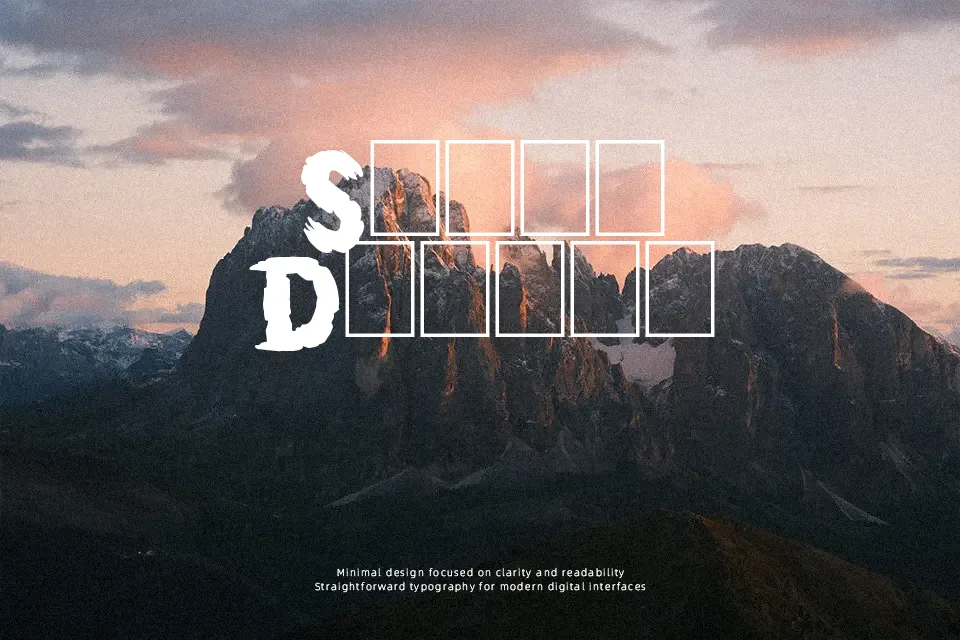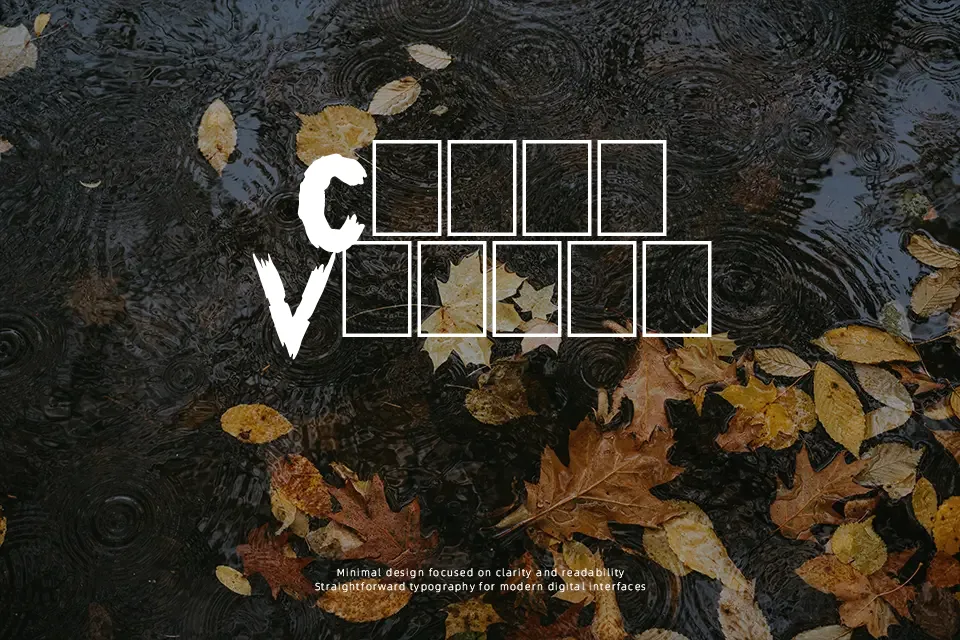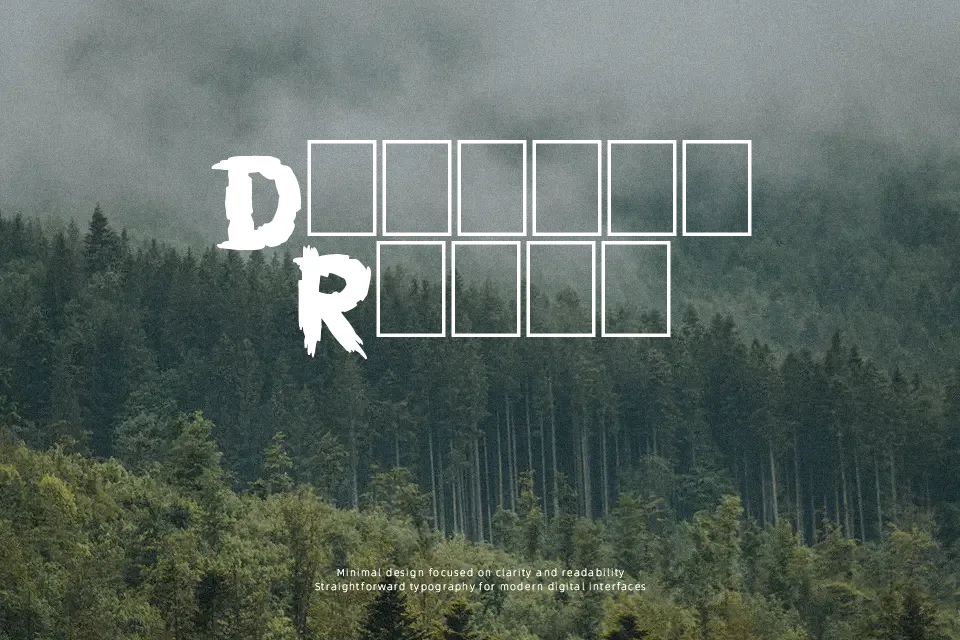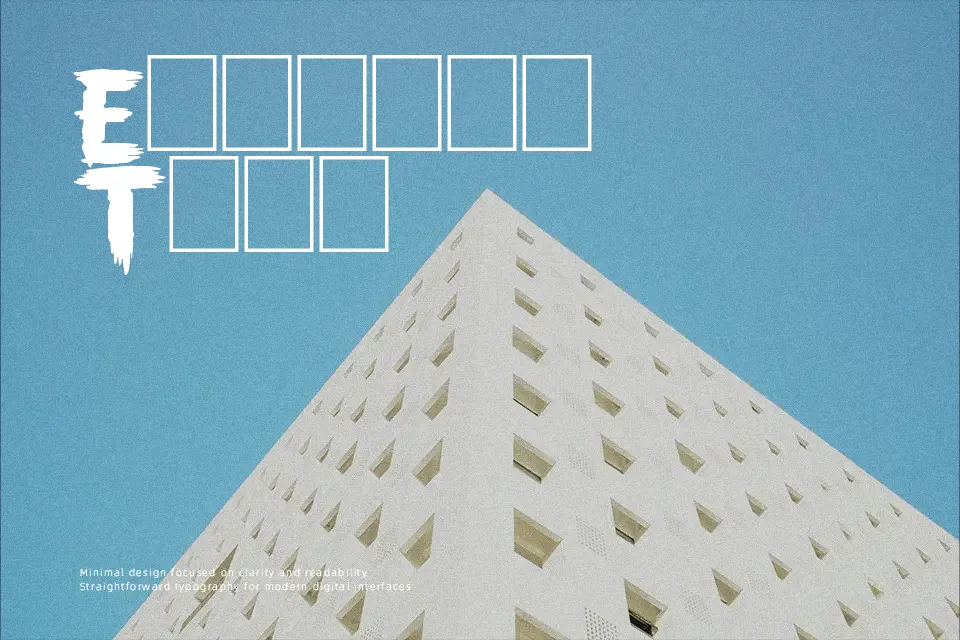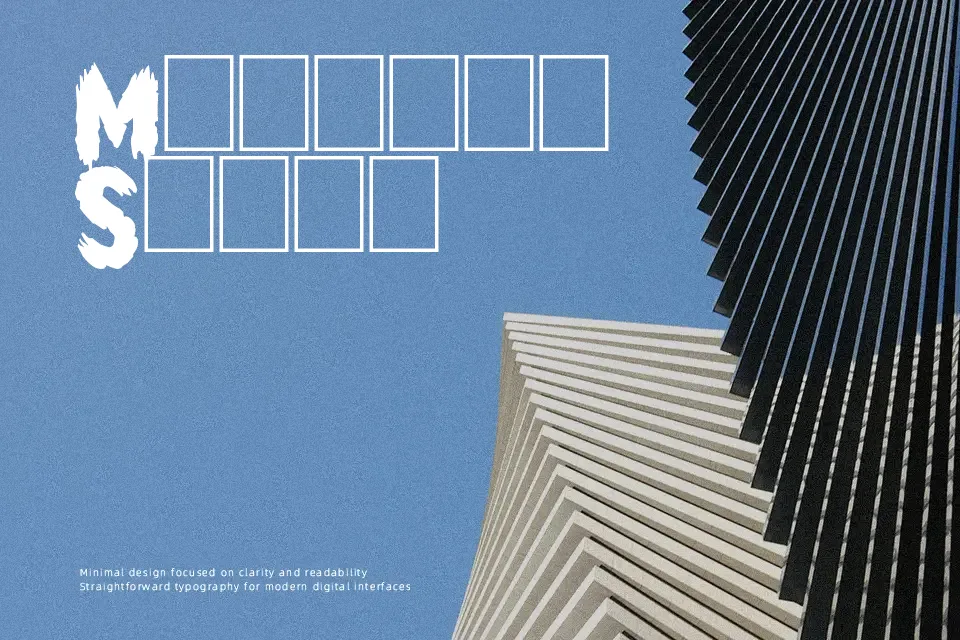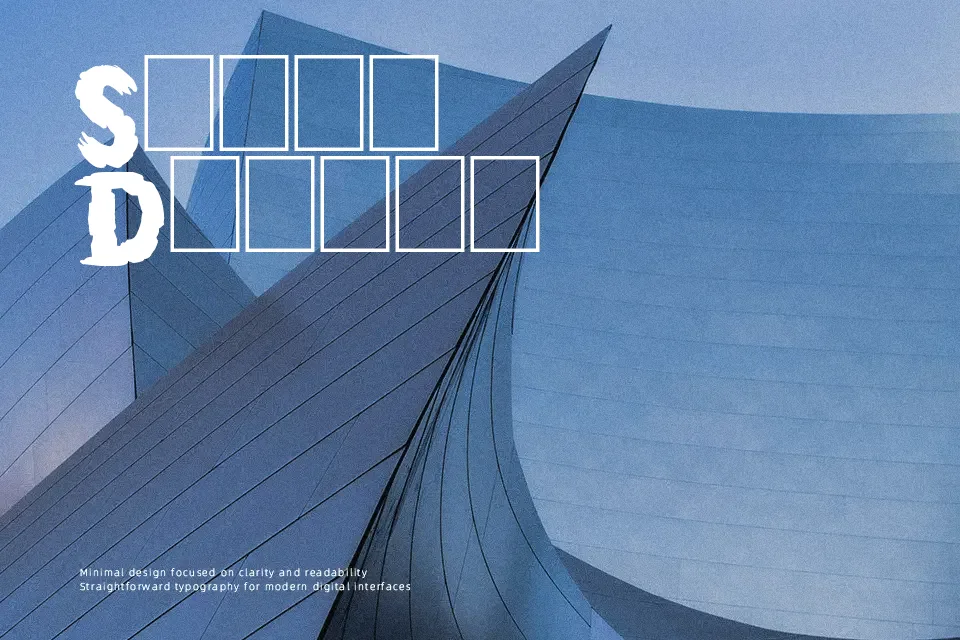
Them! Font
Them! Font establishes an ominous visual tone through heavily textured strokes and jagged, erratic outer edges. Each glyph exhibits dense proportions alongside compact spacing, creating an aggressive rhythm that immediately commands viewer attention. Heavy stroke thickness ensures that the letterforms remain distinct and readable when rendered at large display dimensions on gaming packaging or theatrical posters. However, the intricate distress along the boundaries reduces legibility at reduced scales, making the typeface poorly suited for dense body copy or digital interface menus. In practical application, the design functions most effectively as a thematic headline solution where visceral impact outweighs conventional text clarity.
Best For: horror film title cards, Halloween event posters, haunted house banners
Not Ideal For: long paragraph text, corporate business documents, mobile app interface labels
Perfect for film, gaming, and halloween, with a bold and decorative style.